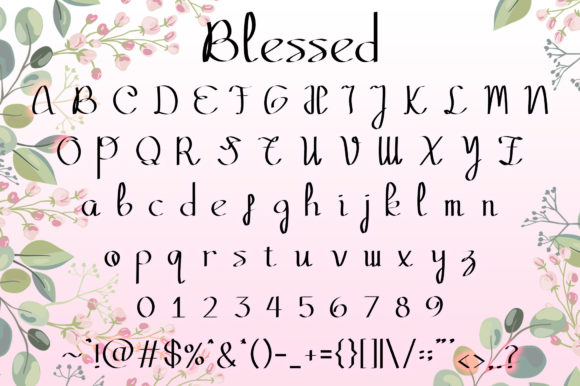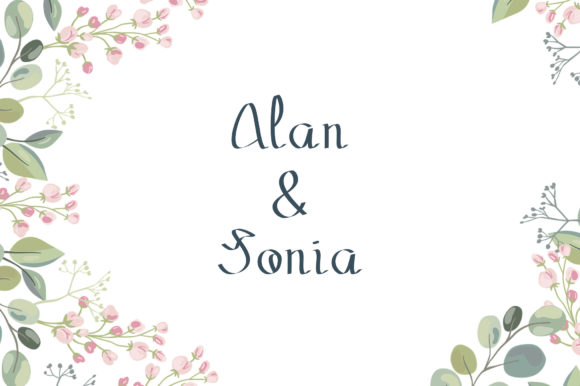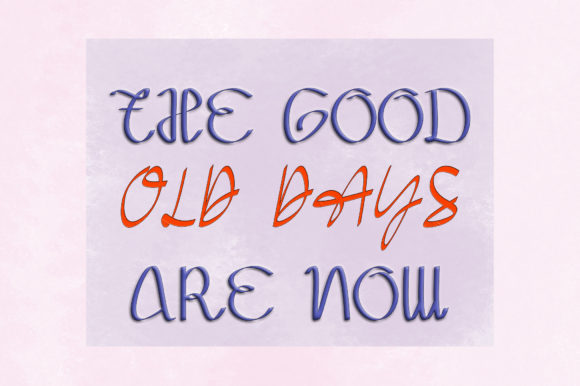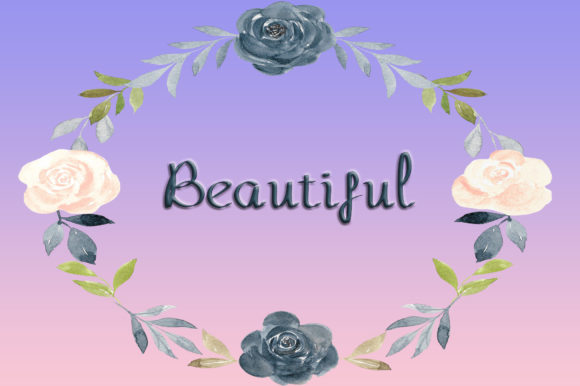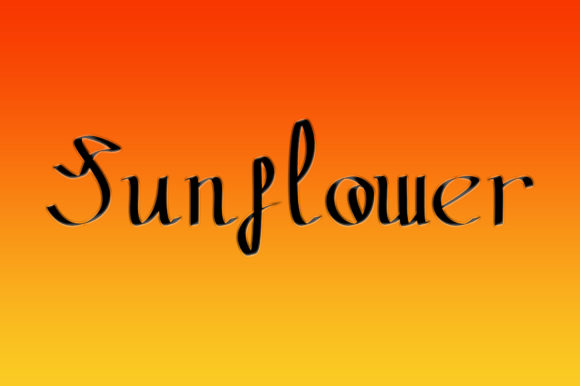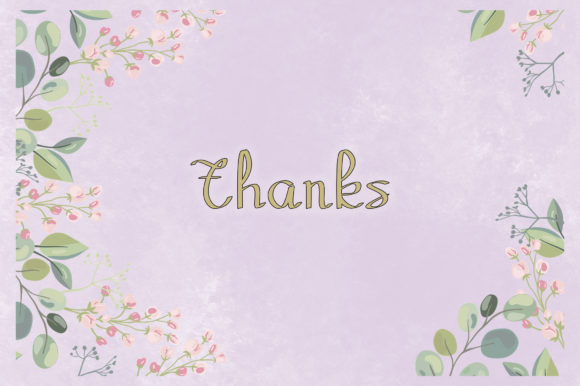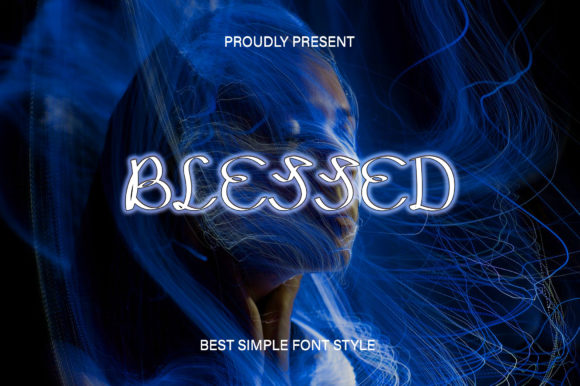
The Blessed Font: A Creative Game-Changer for Designers and Crafters
I’ll never forget the moment I stumbled upon the Blessed font. I was working on a wedding card project for a client, and I was struggling to find the perfect handwritten font that would capture the elegance and whimsy of the occasion. As I scrolled through my font library, I stumbled upon Blessed, and it was love at first sight! 💕
The Blessed font is a cool and creative handwritten font that has become a staple in my design toolkit. Whether I’m working on banners, wedding cards, or any other creative project, Blessed always delivers. In this article, I’ll share my honest review of the font, provide a practical guide on how to use it, and explore similar fonts that you might love.
• 💫 Unique and creative handwritten style that’s perfect for making a statement
• 🎨 Versatile and adaptable to various design projects, from elegant to playful
• 👍 Excellent for use in titles, headings, and emphasis text
• ⚠️ Some users may find the font a tad too ornate for very formal or traditional designs
• 🤔 Limited availability of certain OpenType features in certain software or platforms
The Story Behind Blessed: Designer Inspiration
The Blessed font was designed with love and care by a talented type designer who’s passionate about creating beautiful, unique fonts. The designer’s inspiration came from traditional handwritten scripts, combined with a modern twist to make it fresh and exciting.
Is Blessed suitable for body text? While Blessed is a beautiful font, it’s best suited for titles, headings, and emphasis text. For body text, you may want to choose a more traditional font.